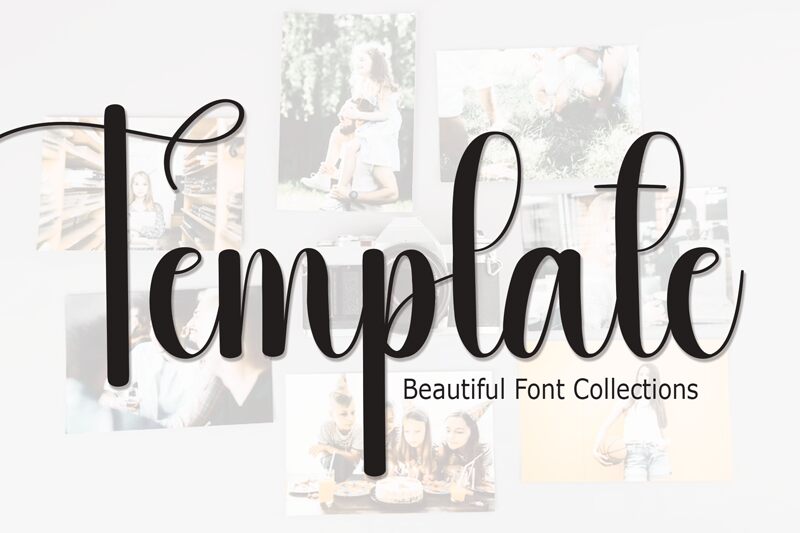
Template
Template font by Scratchones is a dreamy calligraphy font with soft curves and strokes. The condensed width naturally enhances its contemporary design and adds to its elegance and sophistication. The beautiful visual structure of the letters dominates every text written, making Template a great choice for titles and other short texts.
Template’s stylistic angles serve wedding invitations, anniversary cards, gift card designs, stationery branding, logotypes, typography quotes, fashion events, packaging designs, magazine layouts or covers. Use this free calligraphy typeface even more unconventionally in T-shirt print designs or large-scale advertising structures such as billboards.